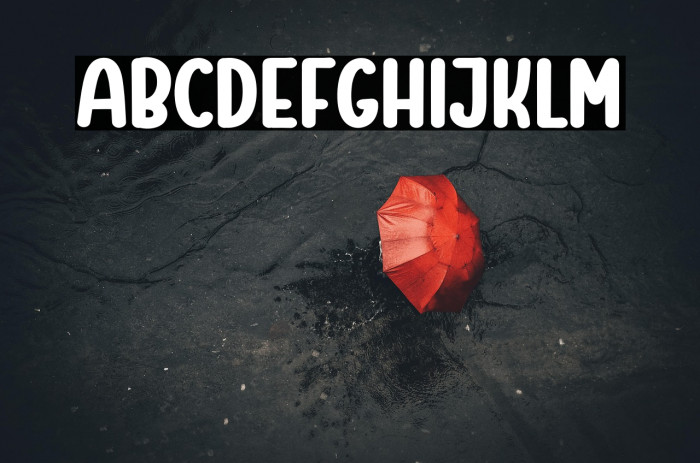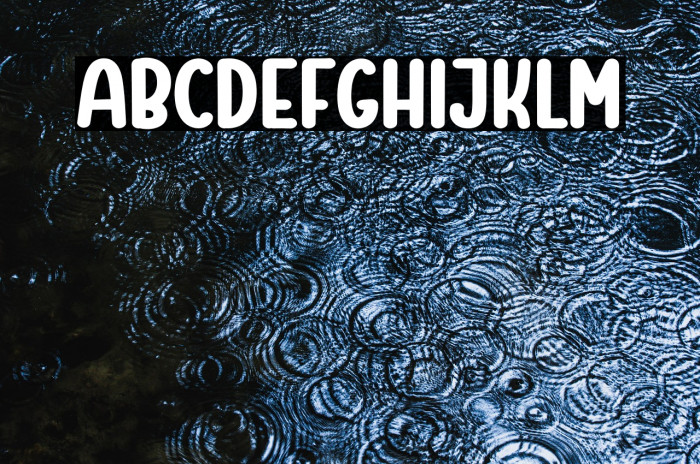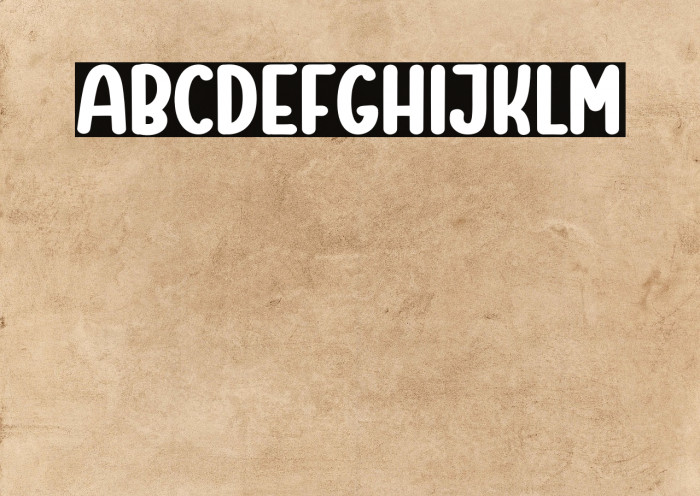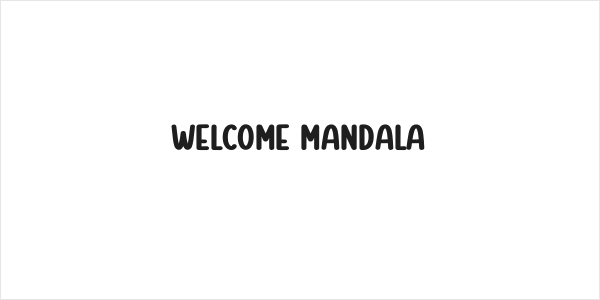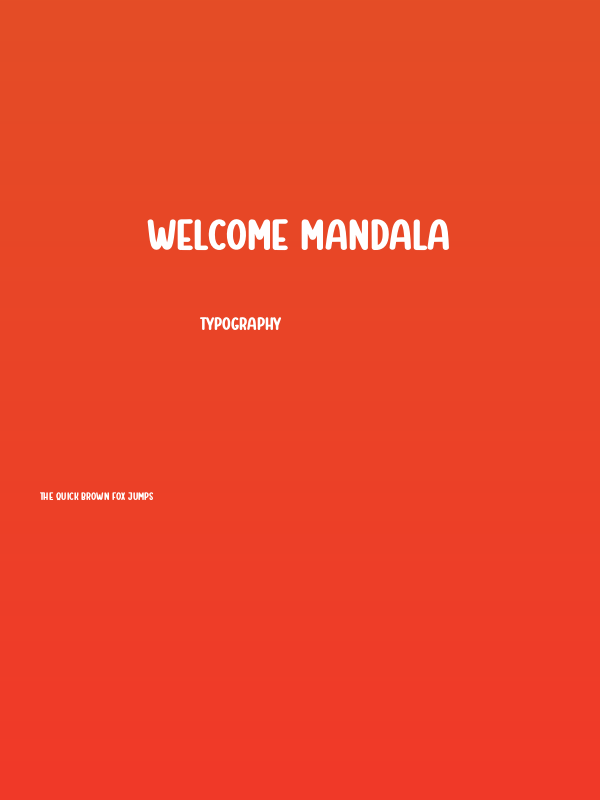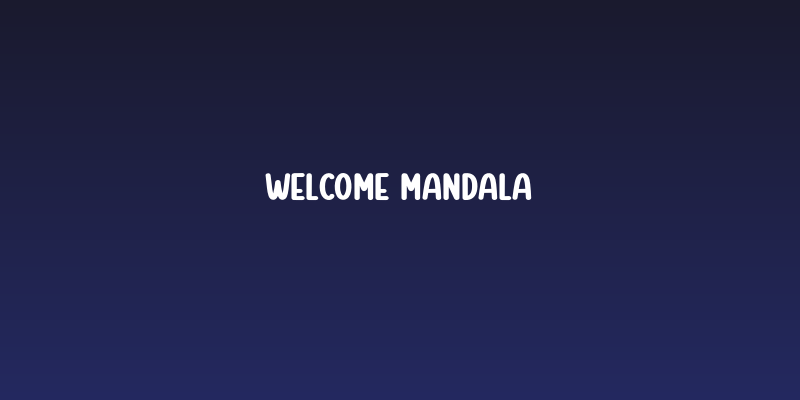
Welcome Mandala Font
Welcome Mandala Description
This font features a playful and rounded design, characterized by its bold and smooth curves. The letters are evenly spaced, providing a clean and approachable appearance. The uppercase and lowercase letters maintain a consistent style, with a slight emphasis on rounded edges that give it a friendly and informal look. The numerals and special characters follow the same design principles, ensuring uniformity across all glyphs. This font is ideal for projects that require a touch of whimsy and warmth.
| Proposed Projects | Ideal for children's books, playful branding, casual invitations, and social media graphics. |